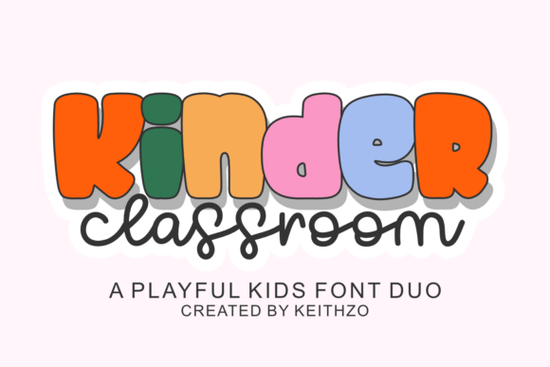
If you're creating classroom materials, kids’ party invites, or playful educational printables, the right font can make all the difference. That’s where Kinder Classroom Font comes in a cheerful, hand-drawn duo that captures the spirit of early learning with warmth and whimsy. Designed with both teachers and creative entrepreneurs in mind, it brings a friendly, approachable feel to any project aimed at young children.
Unlike stiff, overly polished typefaces, Kinder Classroom leans into soft curves, uneven lines, and gentle imperfections that mimic real handwriting. This makes it especially effective for worksheets, flashcards, storybooks, or even custom apparel for daycare centers and preschools. The set includes both a regular and an outline version, giving you flexibility to layer, color-block, or add dimension without switching fonts.
Why choose a playful font like Kinder Classroom for educational projects?
Children respond well to visual cues that feel inviting and non-intimidating. Fonts with rounded edges and open letterforms like those in the Kinder Classroom duo support early literacy by making letters easier to distinguish. For educators and small business owners creating printable resources, this means your materials not only look engaging but also function better for their intended audience.
Compare it to other display fonts designed for youthful themes: while Volta offers bold geometric energy and Oscar leans into retro charm, Kinder Classroom stays grounded in the cozy, crayon-and-construction-paper aesthetic many associate with kindergarten classrooms. It pairs especially well with illustrated elements, watercolor backgrounds, or simple line art.
How can crafters and POD sellers use this font effectively?
If you design for print-on-demand platforms (think mugs, t-shirts, or wall art), Kinder Classroom adds instant personality to quotes like “Kindergarten Rocks!” or “Little Learner.” Because it’s a display font not meant for long paragraphs it works best as headlines, labels, or short phrases. Avoid using it in tiny sizes; its charm shines when letters are large enough to show off those handcrafted details.
For scrapbookers and card makers, try combining the outline style with the solid version to create faux-shadow effects or two-tone titles. You can also layer it over patterned paper from Creative Fabrica’s education-themed bundles for cohesive, ready-to-print kits.
And if you’re building a brand around early childhood whether it’s a tutoring service, YouTube channel, or Etsy shop consistency matters. Pair Kinder Classroom with clean sans-serifs (like Helvetica or Montserrat) for body text to keep things readable while letting your headings pop.
What makes this different from other kids’ fonts?
Many “kids” fonts go overboard with stars, swirls, or exaggerated bounces that quickly feel dated or chaotic. Kinder Classroom strikes a balance: it’s playful without being gimmicky, sweet without being saccharine. Its design feels intentional, not random which is why it’s also popular among professional designers who need authenticity in child-focused branding.
For more options in this style, you might also explore Cameron, which has a similar handwritten vibe but with slightly more structure, or Letter Crafts, which leans into arts-and-crafts textures. But if your goal is to evoke the specific warmth of a well-loved classroom, Kinder Classroom stands out.
If you’re building resources for ages 3–8, Kinder Classroom isn’t just decorative it’s a thoughtful design choice that supports your message with visual kindness. Start small: try it on a welcome sign, a name tag template, or a birthday invitation. Chances are, you’ll find yourself reaching for it again and again.